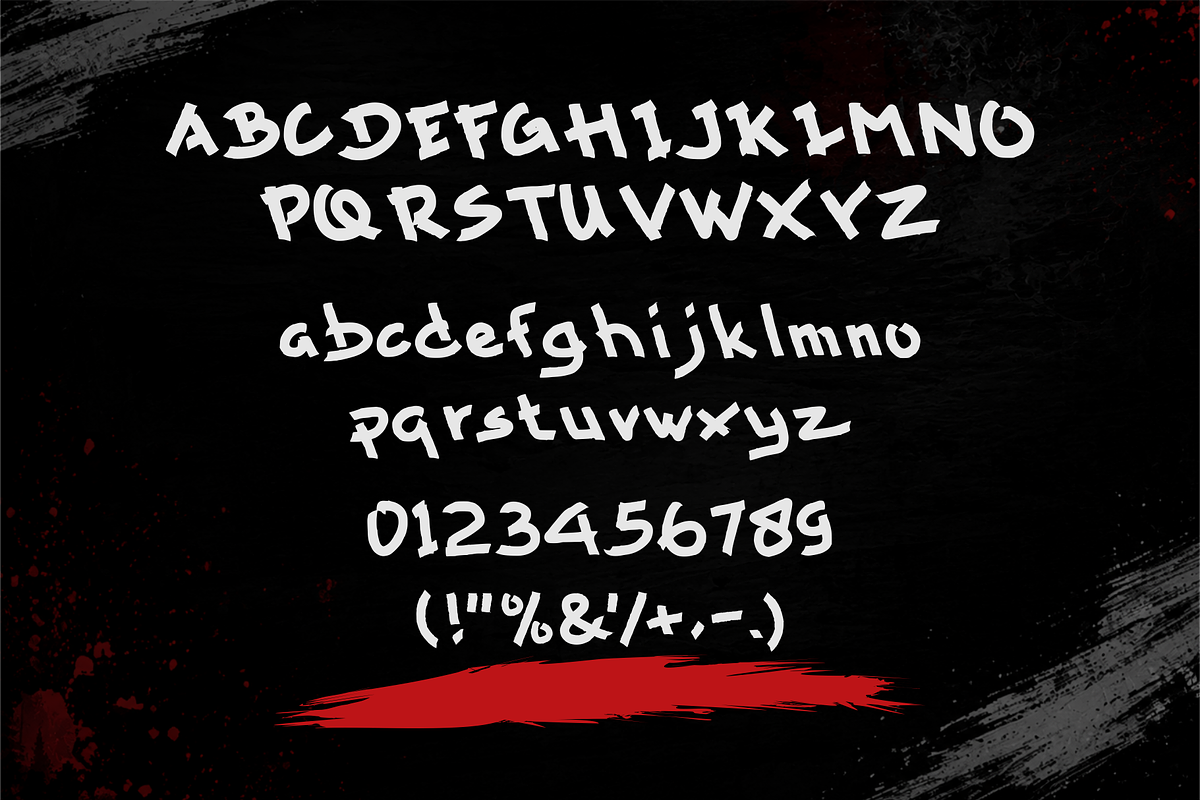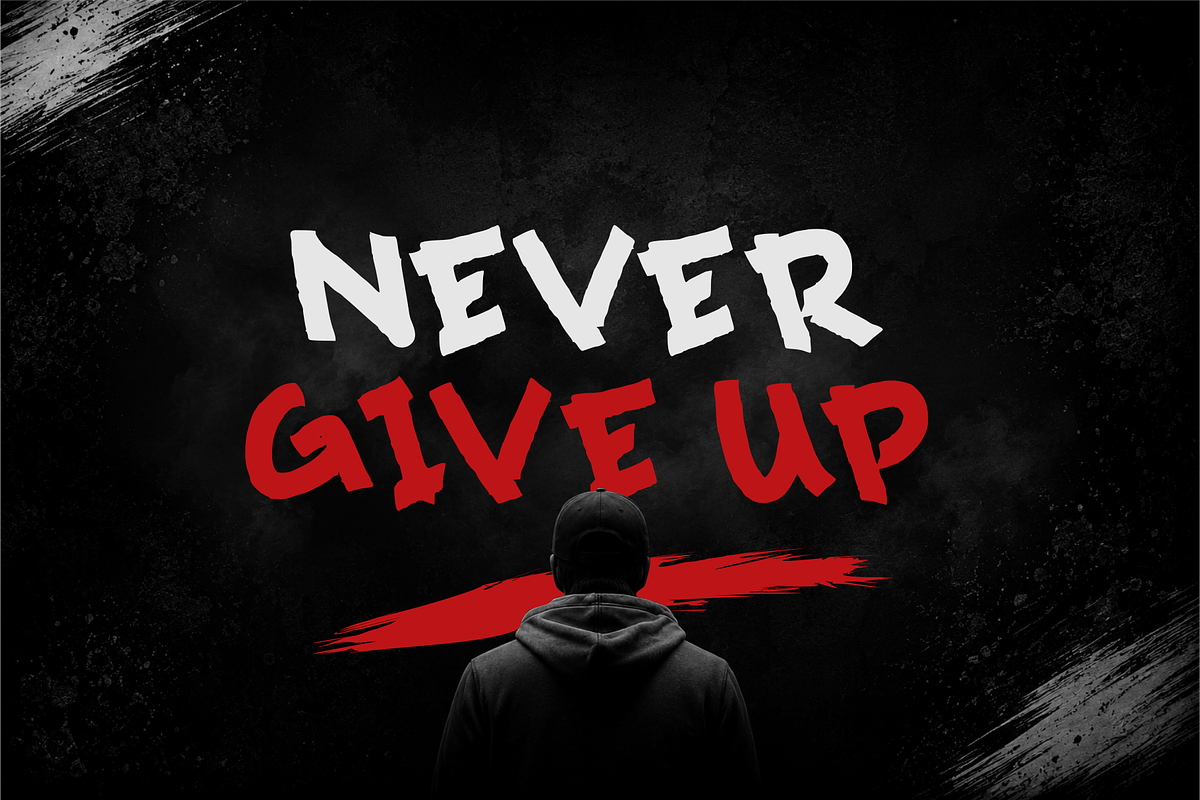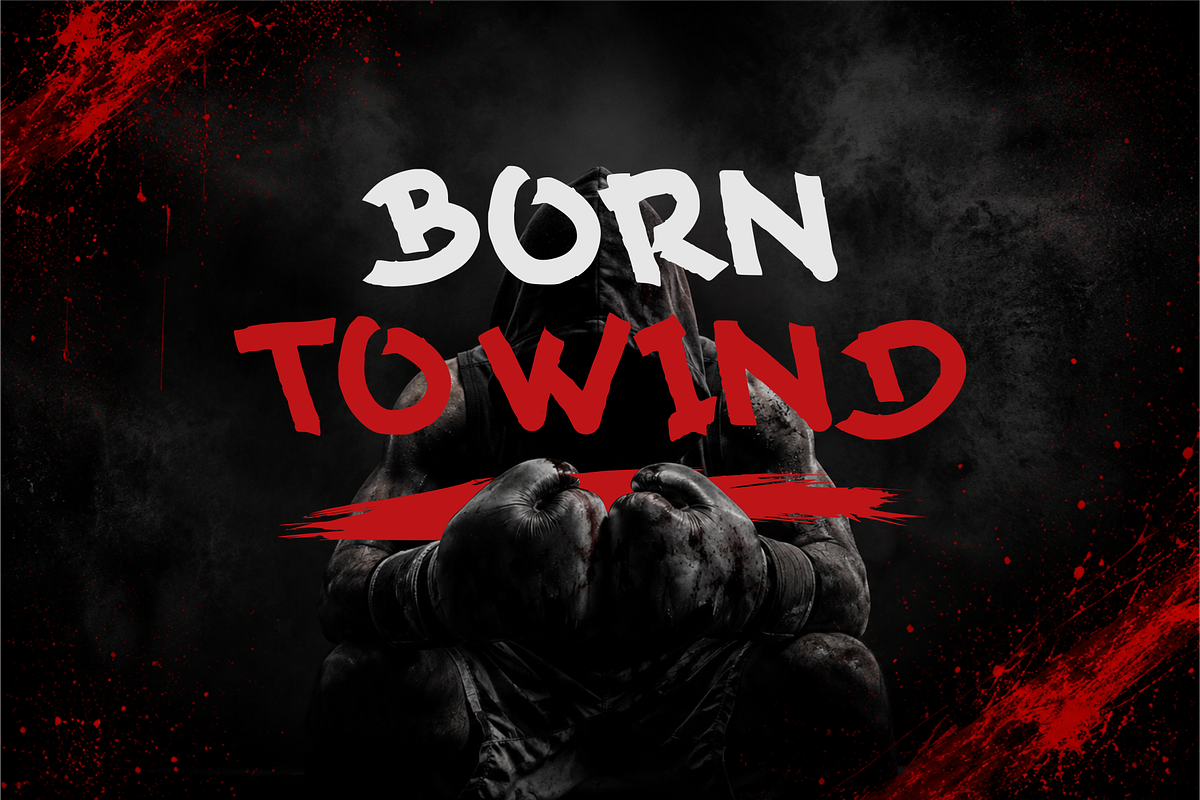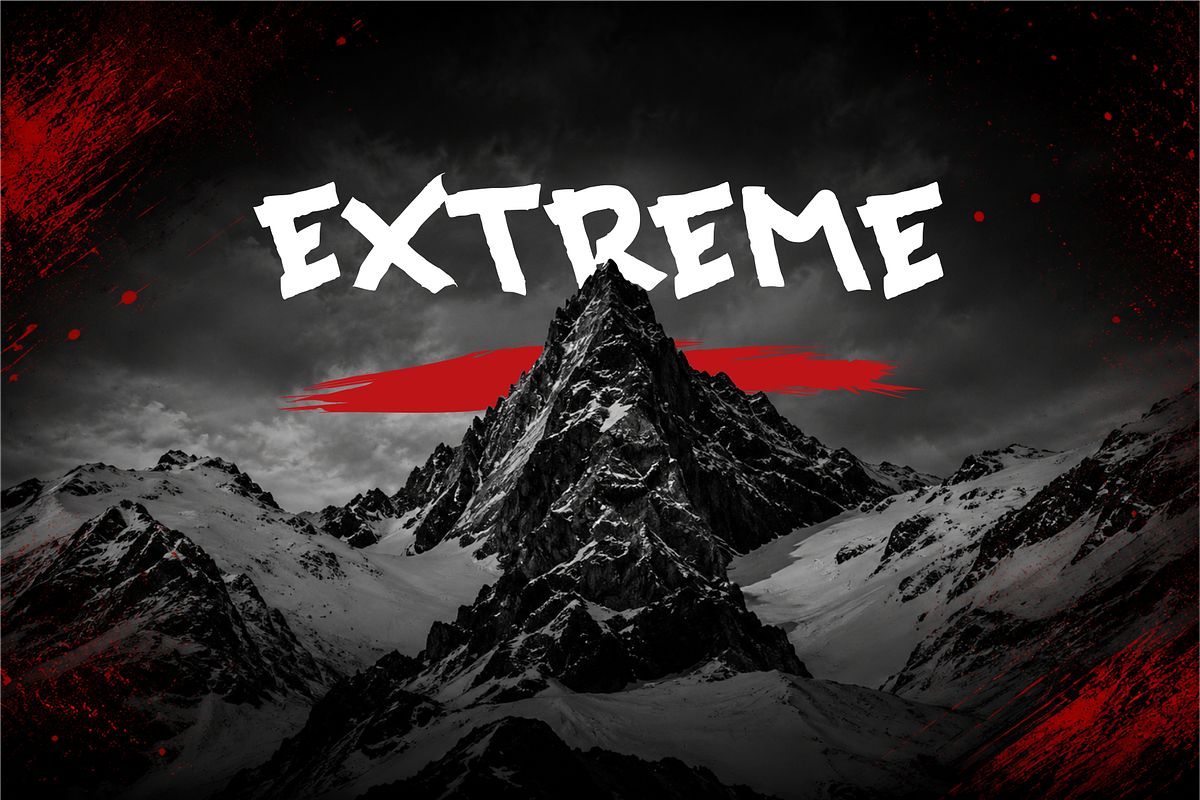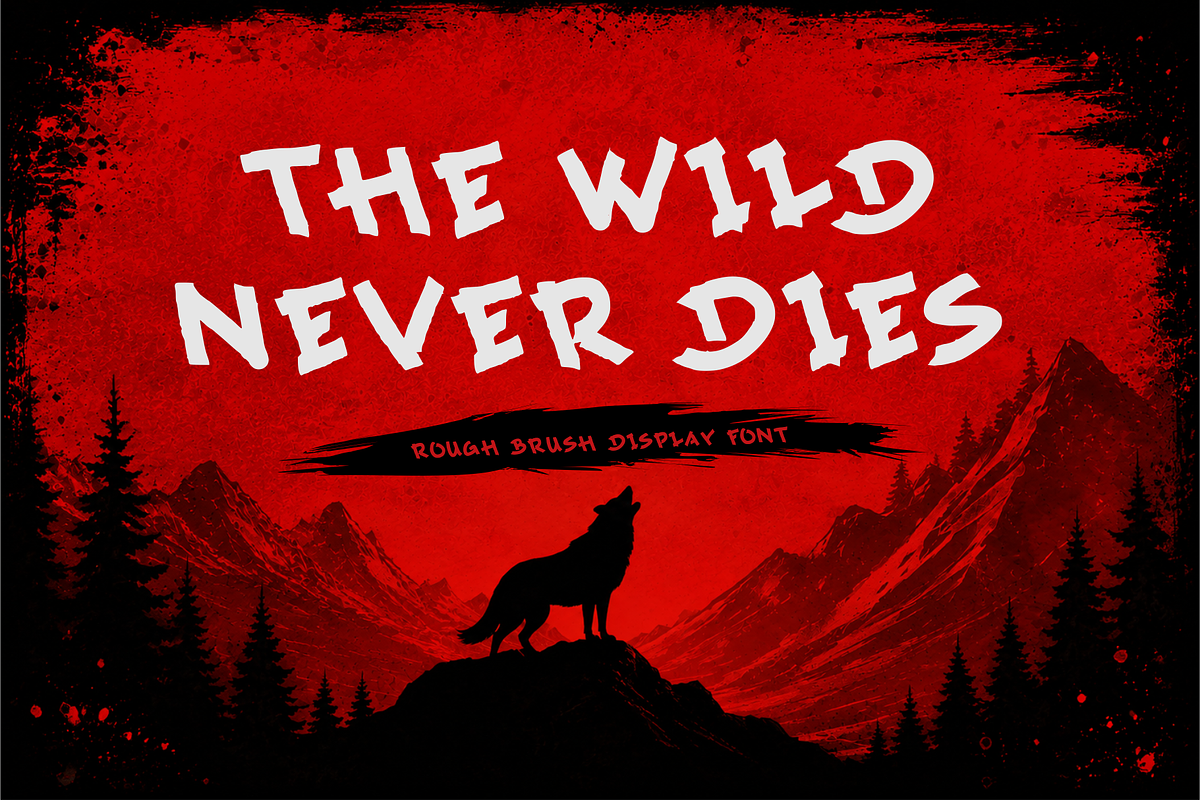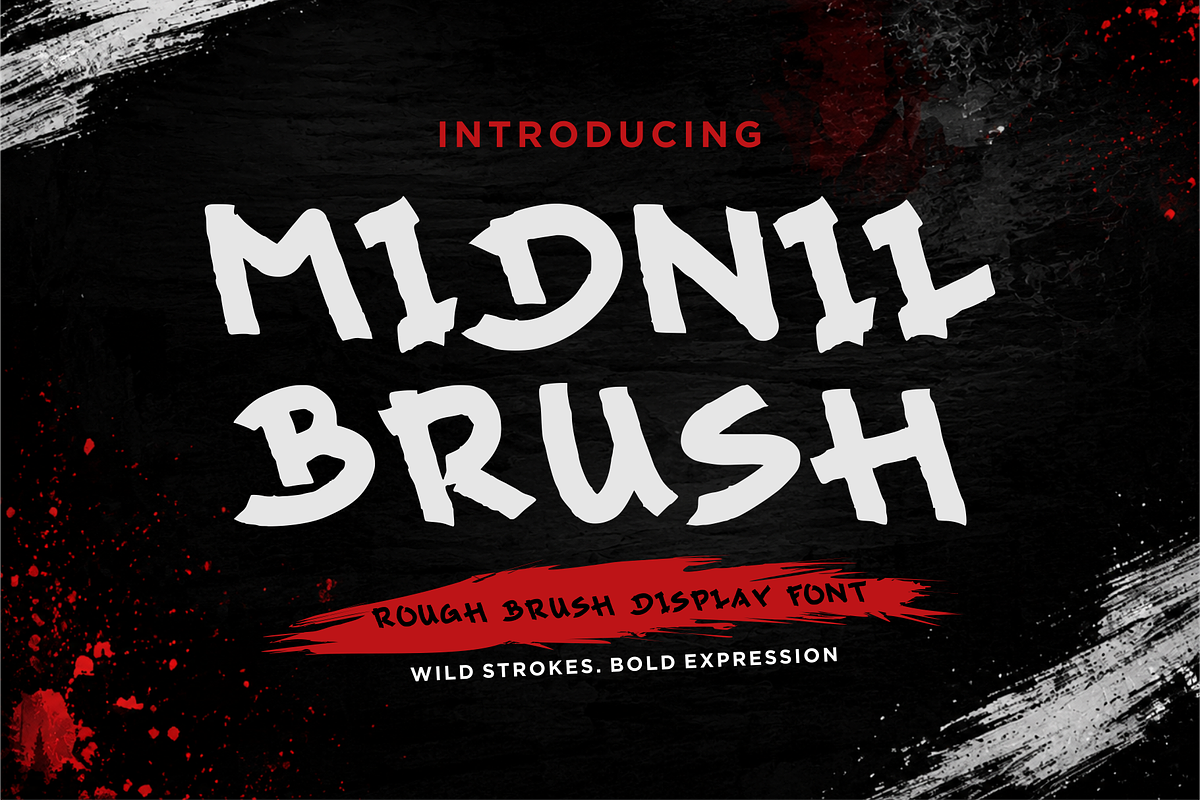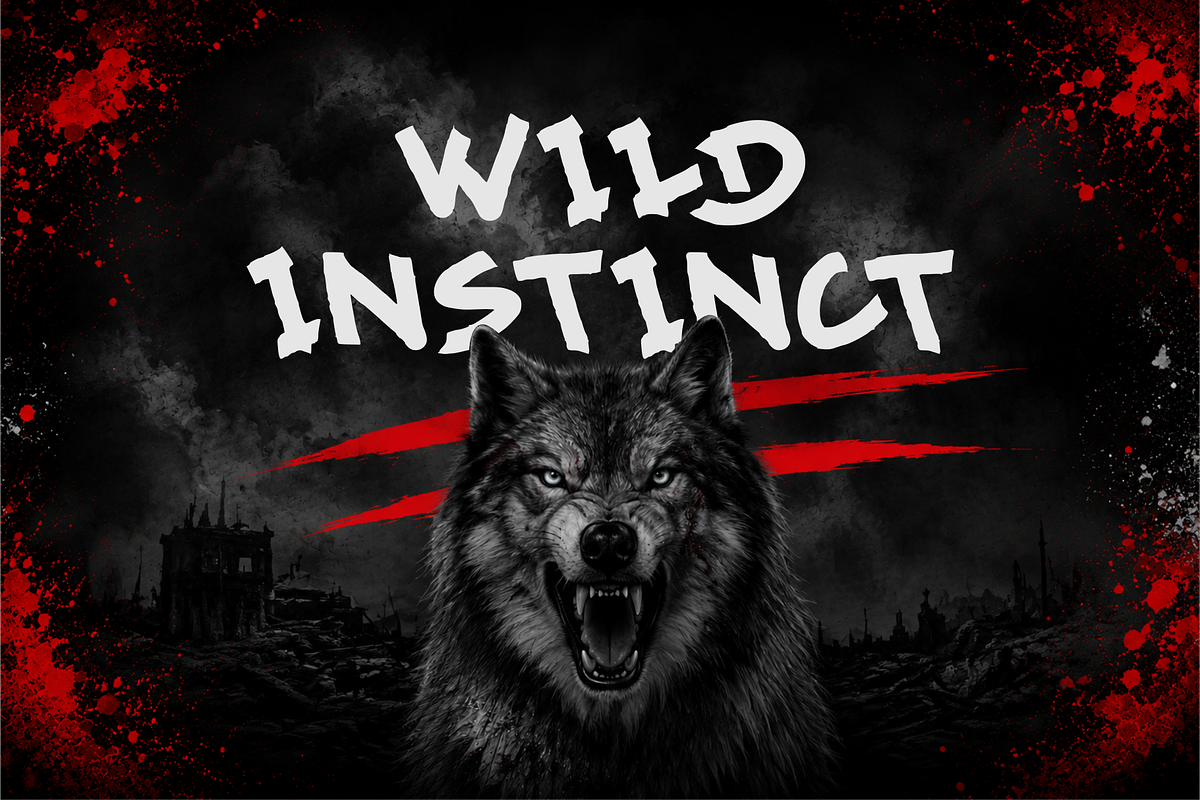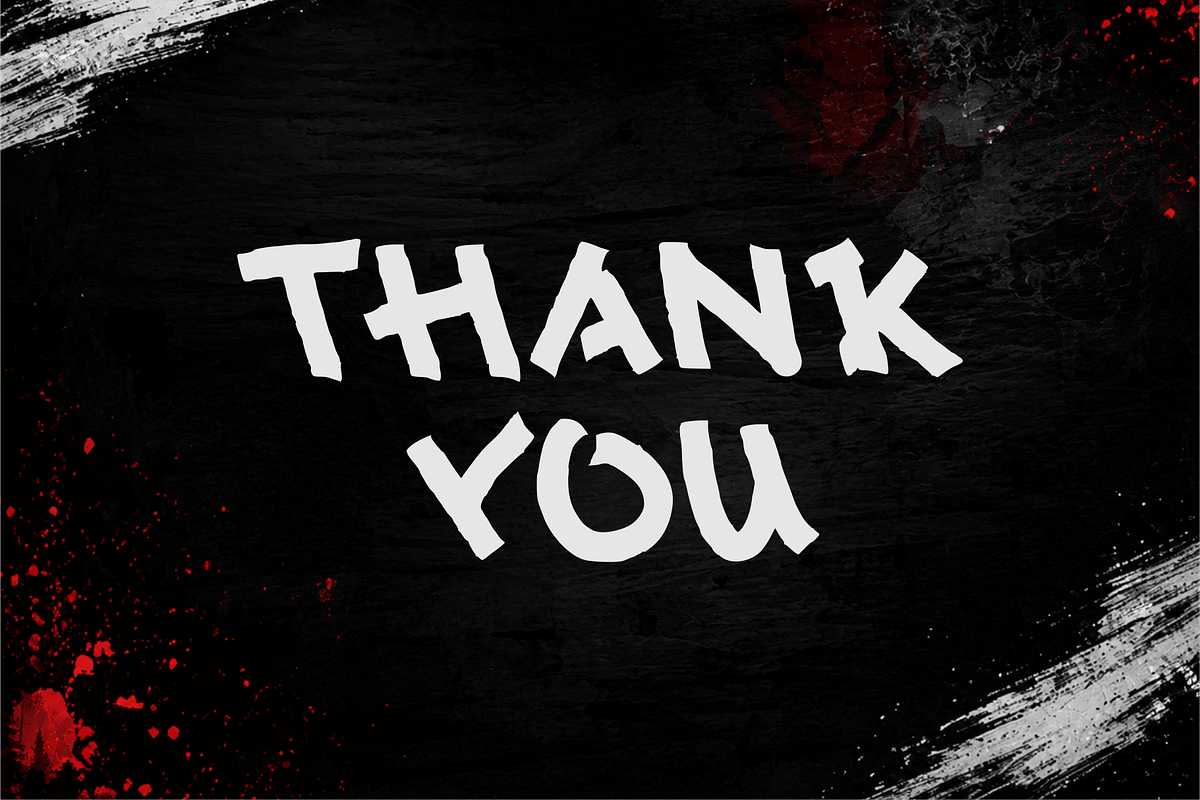
Midnil Brush – Wild Stroke Display
Midnil Brush is a bold rough brush display font that captures the raw energy of hand-painted strokes and expressive lettering. Each character features rugged edges, organic textures, and an intentionally imperfect shape, creating an authentic handcrafted feel with a powerful visual impact.
Designed for attention-grabbing headlines and creative branding, Midnil Brush brings a fearless, rebellious personality to any project. Its bold forms and dynamic brush textures make it perfect for designs that demand strength, movement, and artistic expression.
Whether you're creating music posters, album covers, streetwear branding, movie titles, gaming graphics, horror themes, social media content, packaging, or logos, Midnil Brush delivers a striking and unforgettable look. Despite its rough appearance, the font maintains excellent readability, making it ideal for large display applications.
Bring your designs to life with Midnil Brush—where wild brush strokes meet bold expression.
Rough Brush Display Font
Handcrafted Brush Lettering
Bold & Expressive Character Design
Organic Textured Edges
Authentic Hand-Painted Look
Capital and lowercase letters
High Readability for Headlines
Perfect for Posters, Logos, Branding, Apparel, Packaging, and Social Media
Ideal for Grunge, Horror, Rock, Punk, Urban, and Street-Style Designs